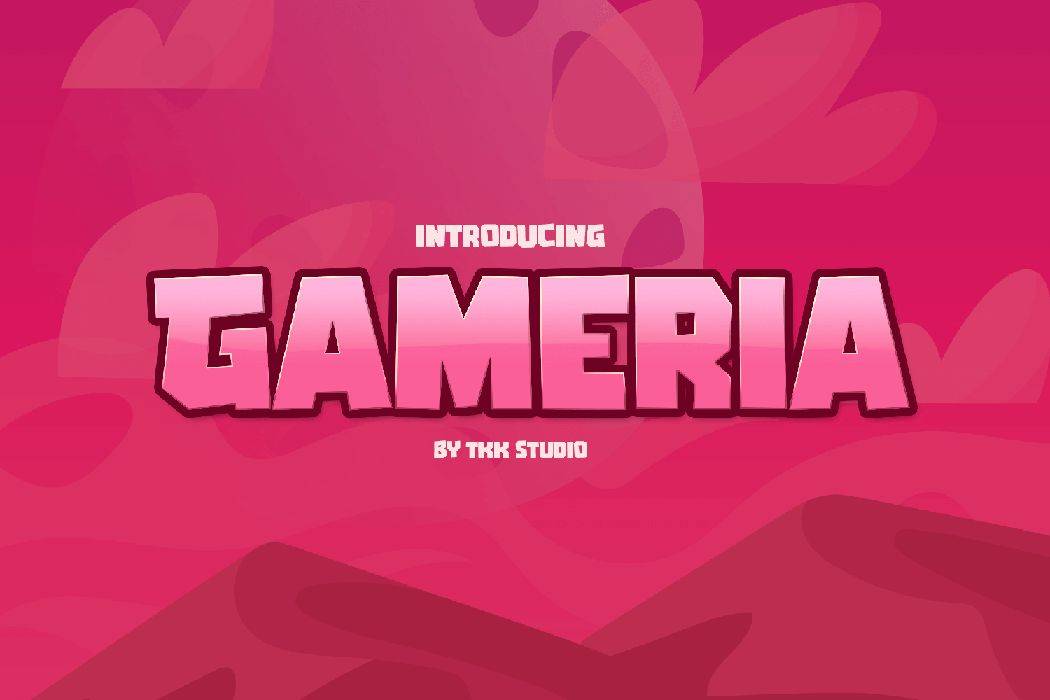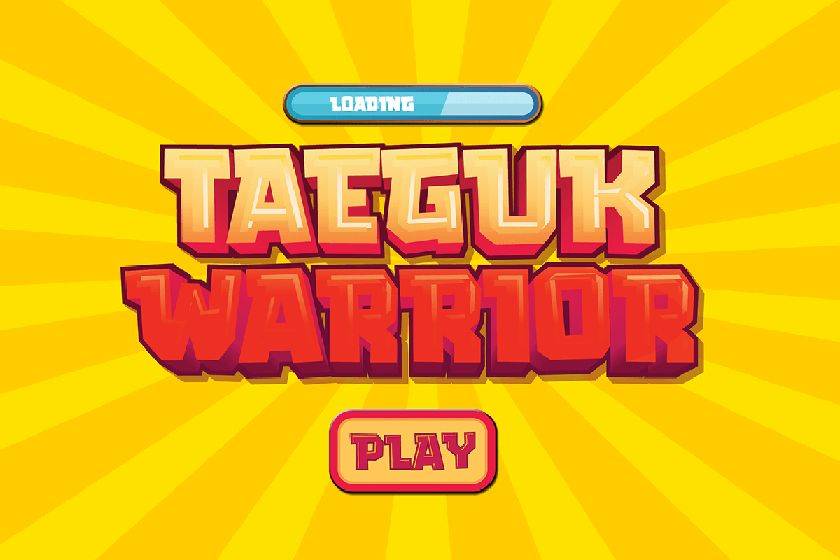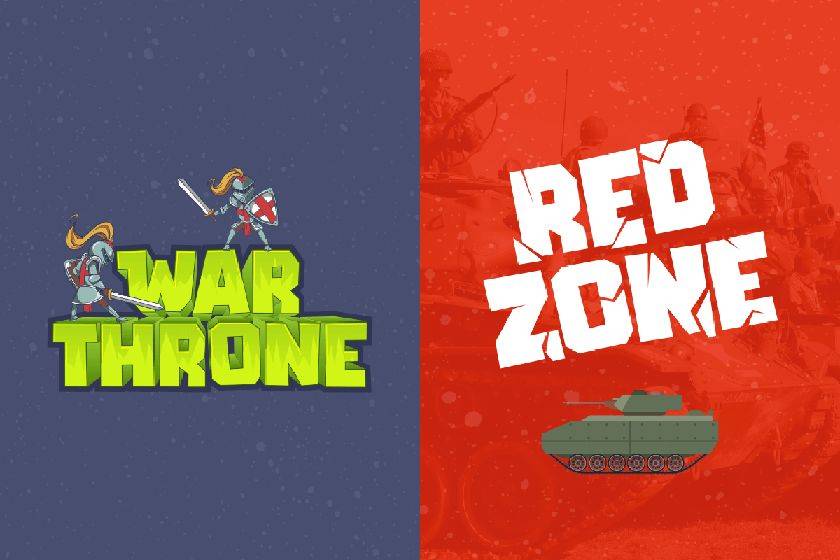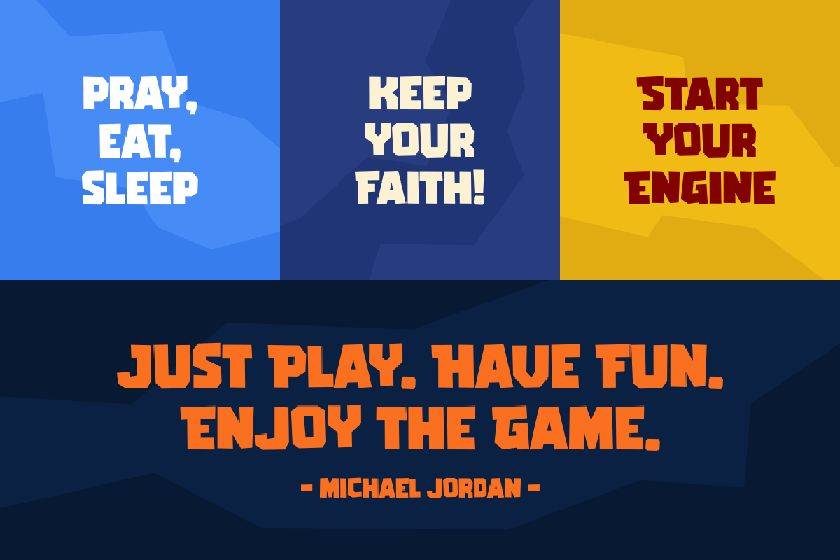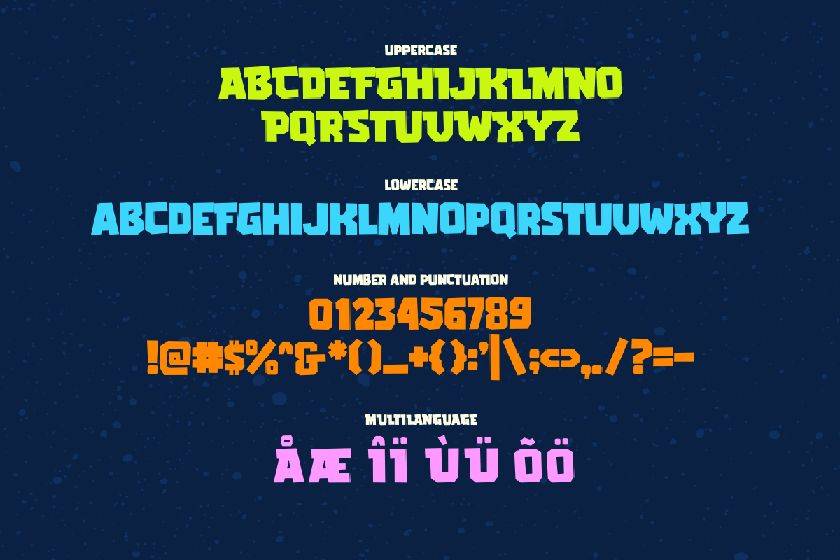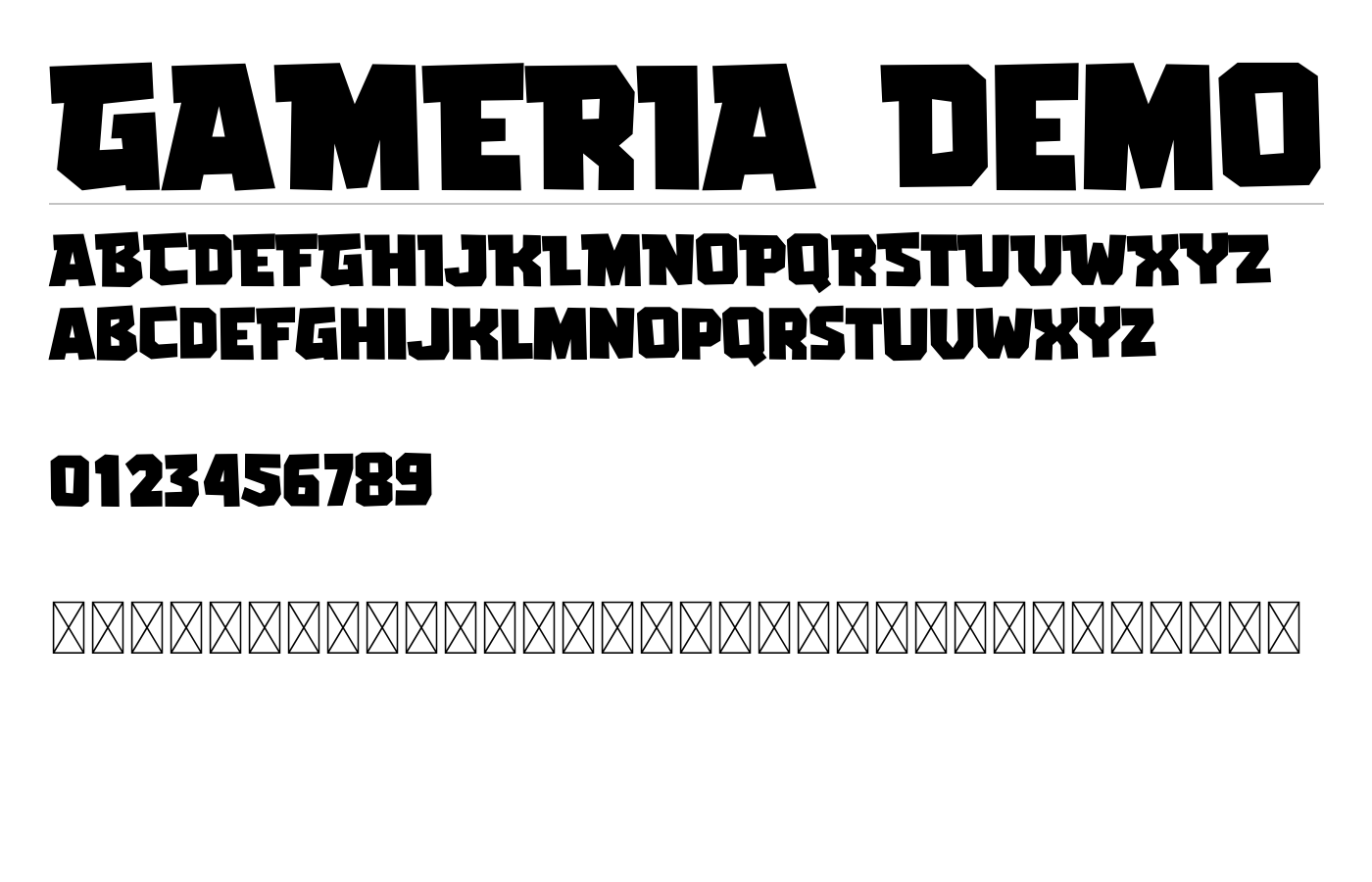
Gameria is a bold, heavy sans serif font with a playful and blocky style that feels strong and dynamic. Its wide, irregular letterforms with sharp corners give it a rugged, energetic vibe ideal for gaming, sports, or youthful branding. This font works best in logos, headlines, and posters where its striking personality can grab attention and convey a fun, adventurous mood.
Gameria Font
About Gameria Font